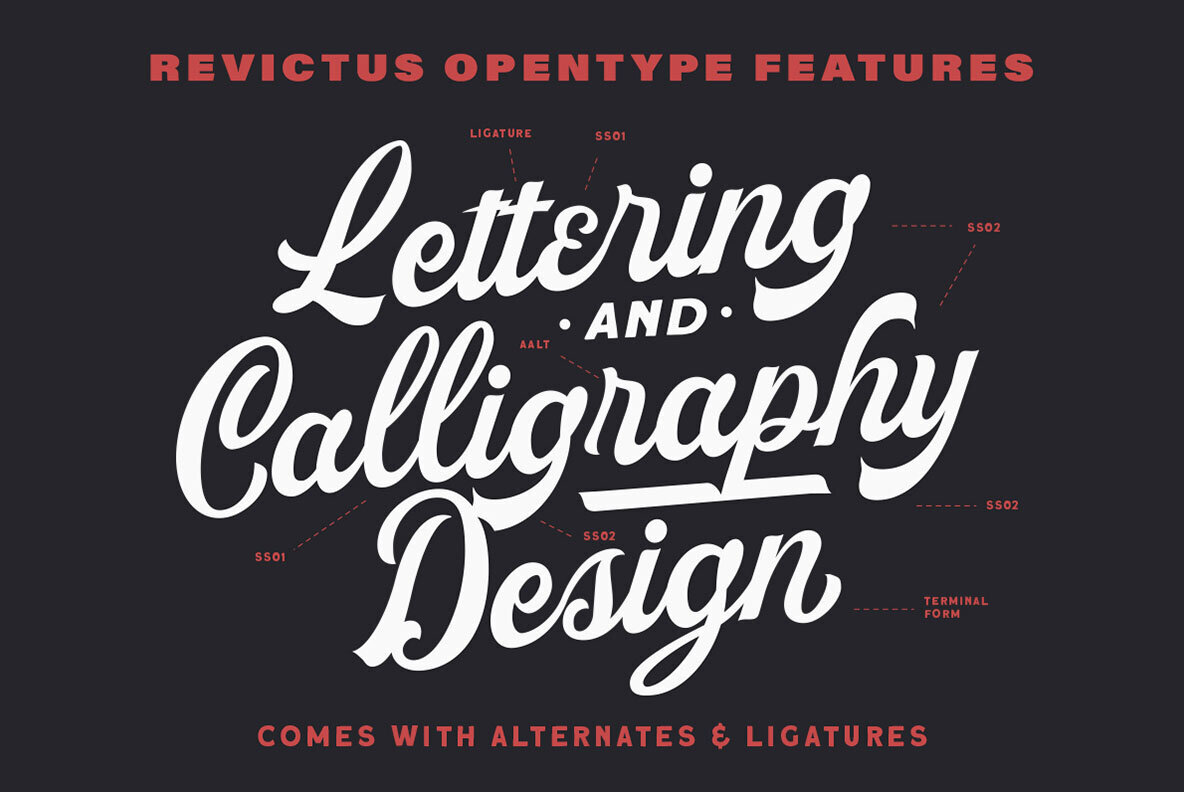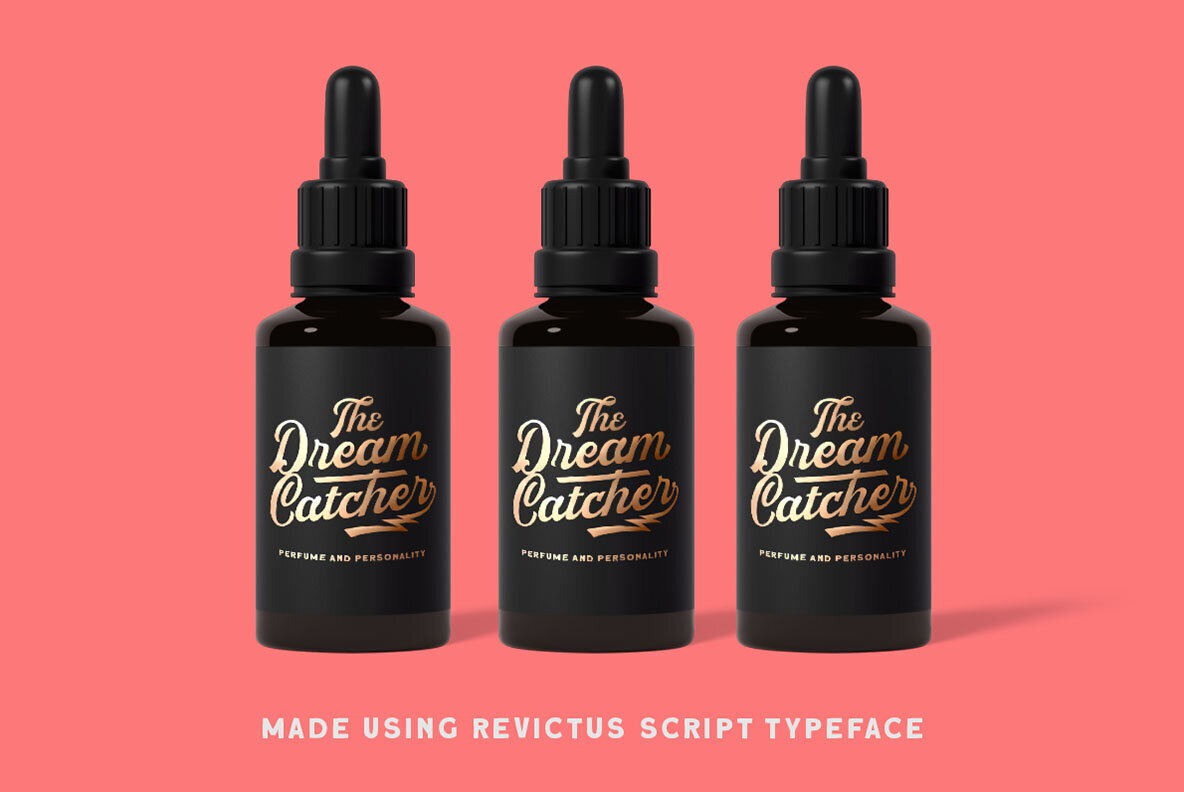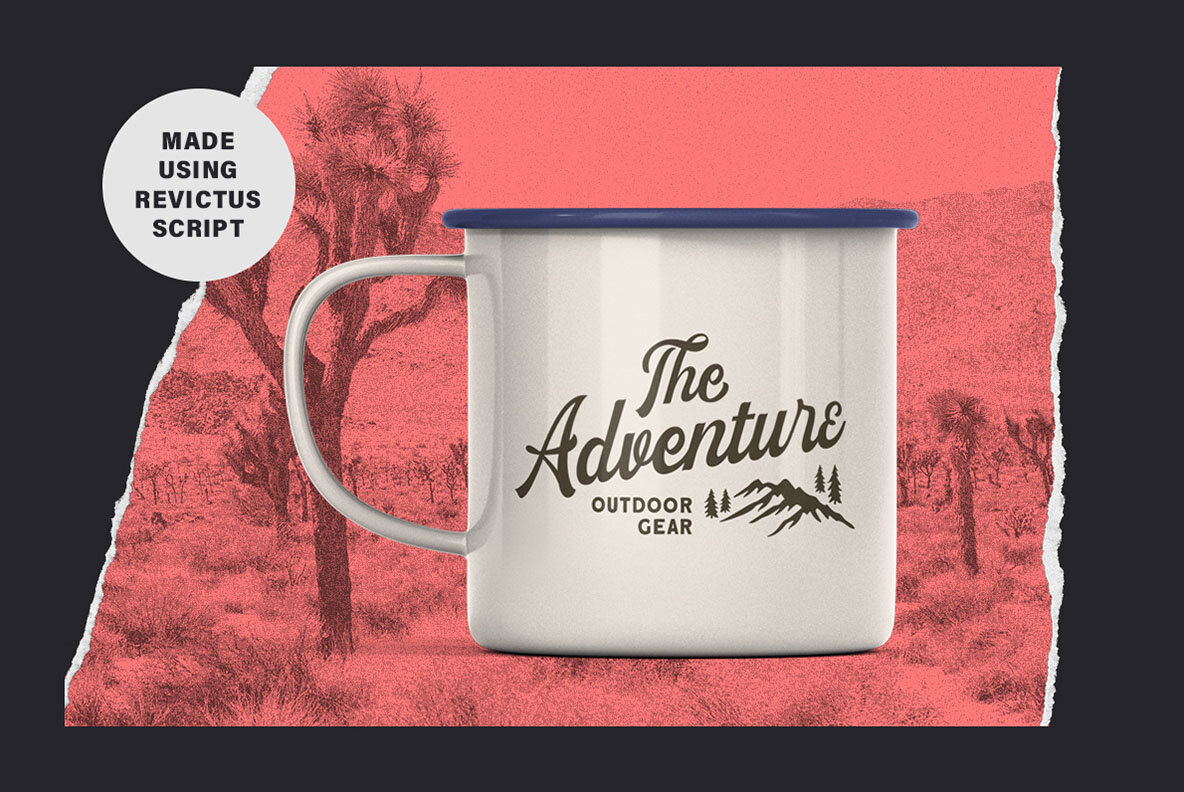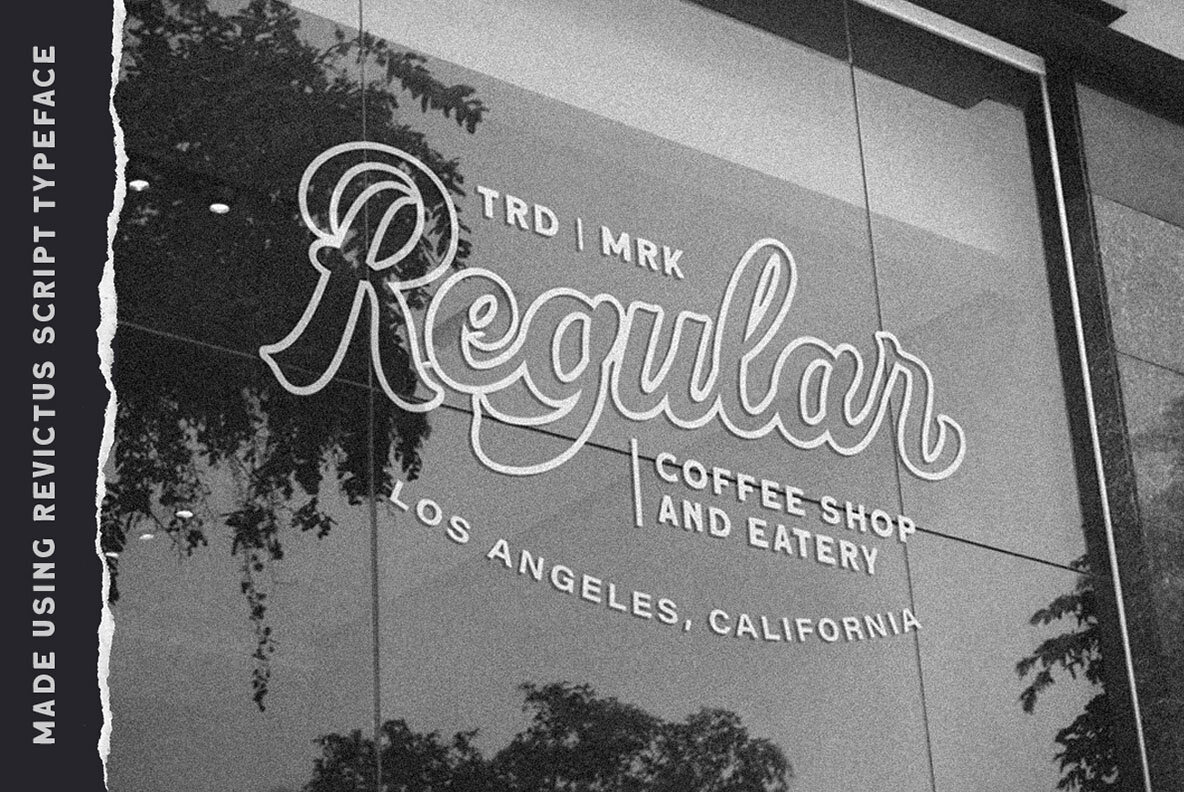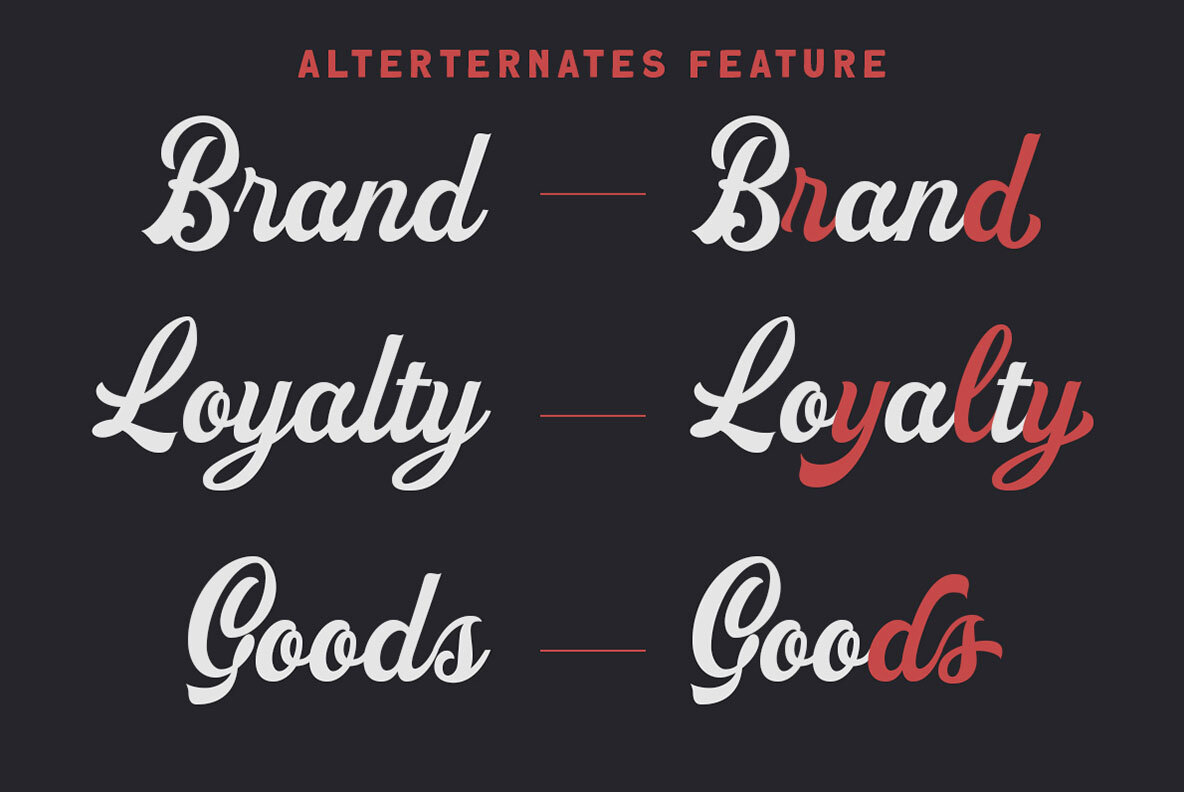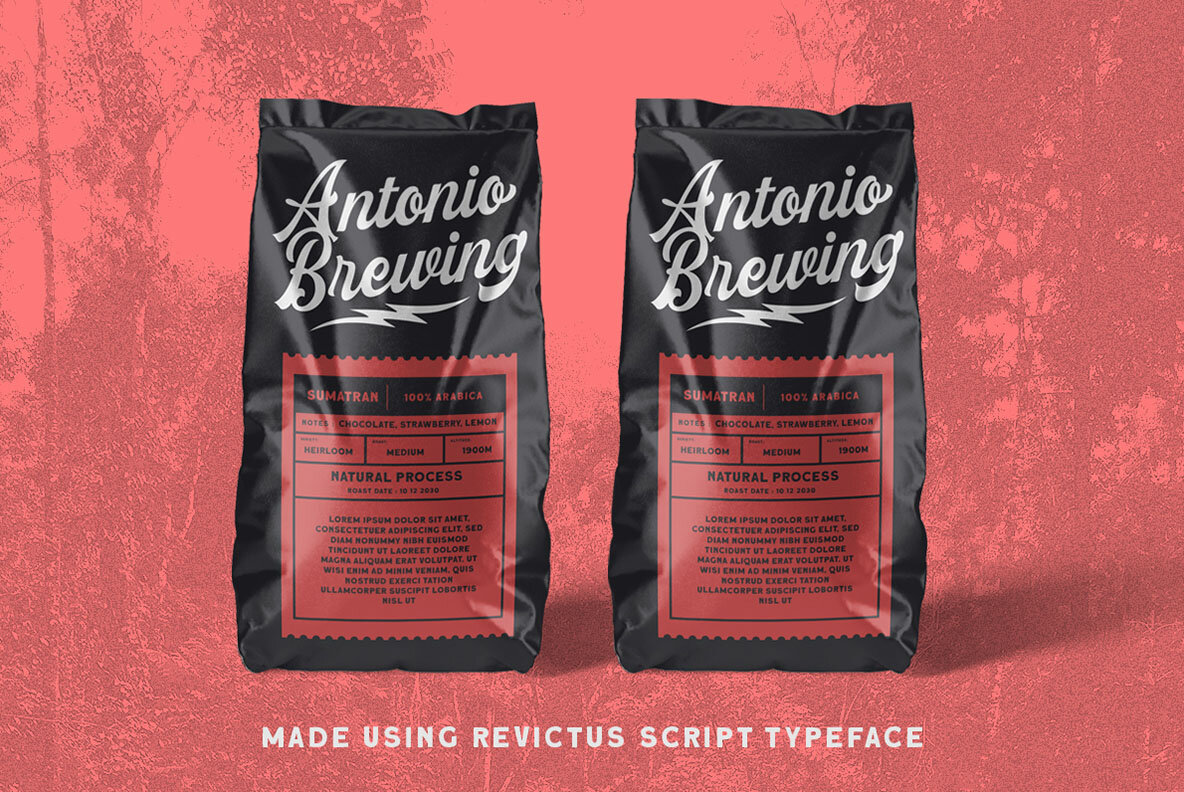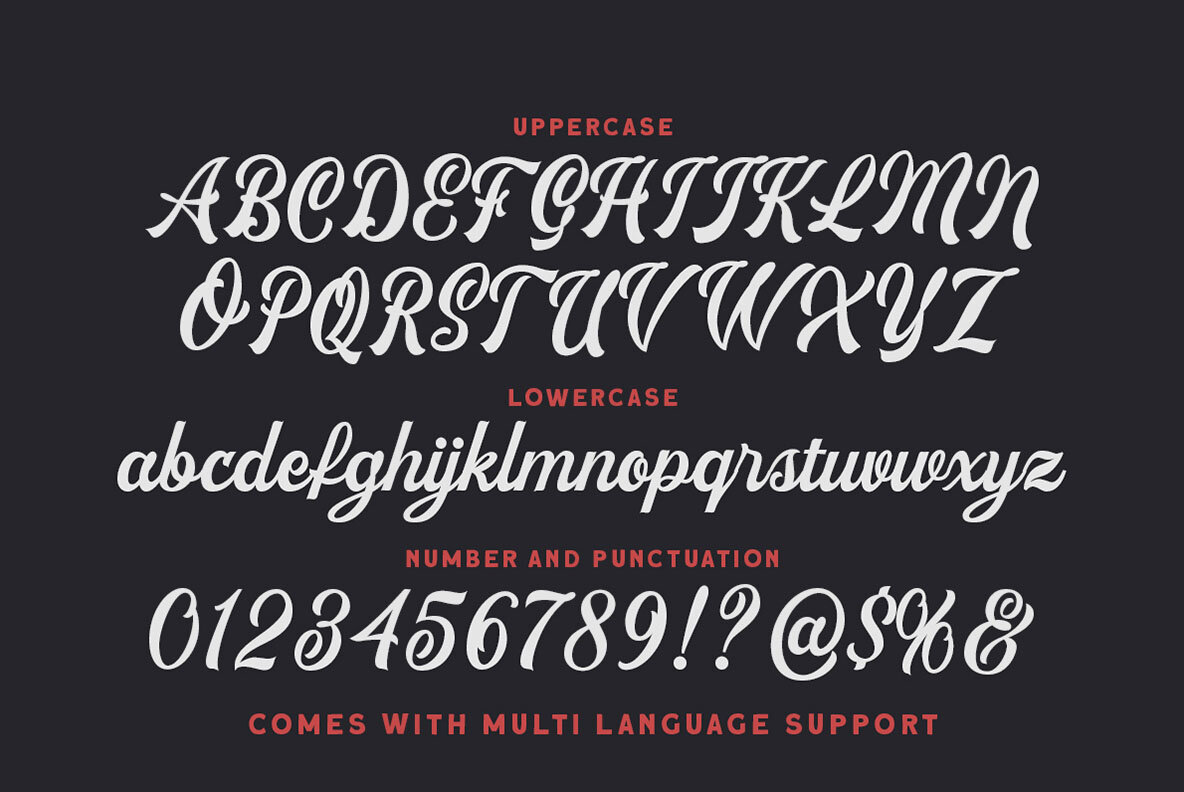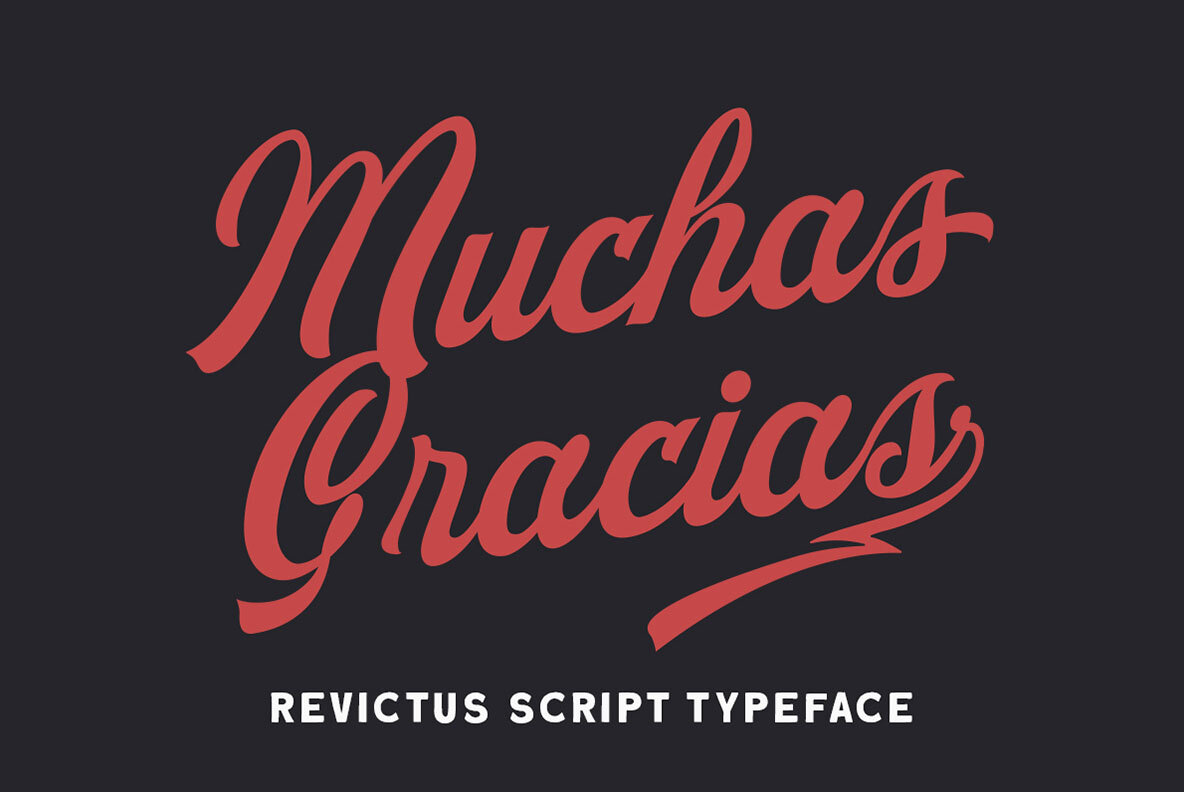
Revictus Font
Revictus is a script with vintage look and feel. This font perfectly made to be applied especially in logo, and the other various formal forms such as invitations, labels, logos, magazines, books, greeting / wedding cards, packaging, fashion, make up, stationery, novels, labels or any type of advertising purpose. Features: We highly recommend using a program that supports OpenType features and Glyphs panels like many of Adobe apps and Corel Draw, so you can see and access all Glyph variations.